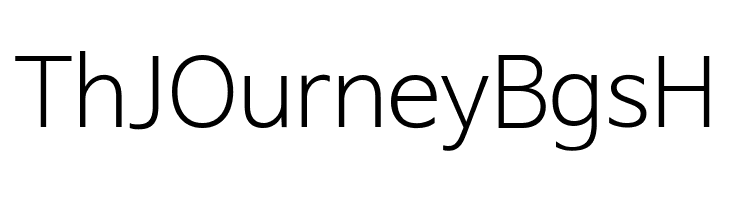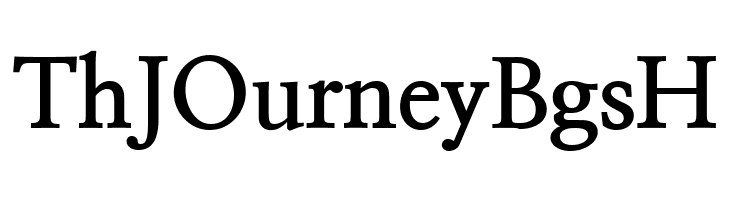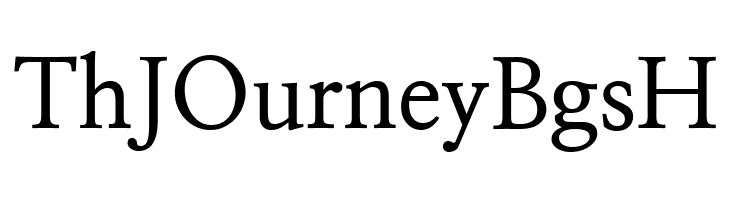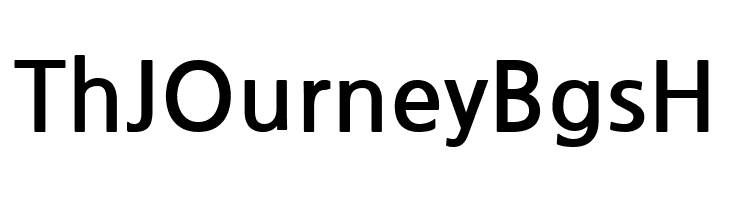
A bold serif font with sharp serifs and a strong, authoritative presence.
A classic serif font with elegant strokes and balanced proportions.
A bold, modern sans-serif font with excellent readability and uniform design.
A bold, modern sans-serif font with excellent legibility and uniform stroke width.
A modern, ultra-light sans-serif font with clean lines and balanced proportions.
A clean, modern sans-serif typeface with consistent stroke width and balanced spacing.
A clean, modern sans-serif font with uniform stroke width and balanced spacing.
A modern, clean sans-serif font with excellent readability and balanced proportions.
A bold, modern sans-serif font with clean lines and balanced spacing.
A modern, light, and clean sans-serif font with excellent readability.